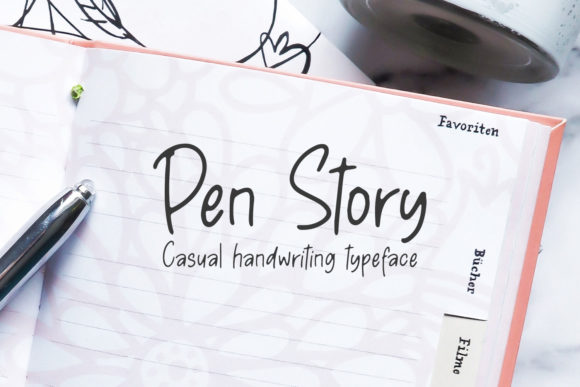
Dive into the world of Pen Story Font, a charming and expressive script font family that will add a touch of whimsy and individuality to your creative projects. With its natural, hand-drawn appearance, Pen Story captures the essence of authentic penmanship, making it the perfect choice for adding a personal touch to your designs.
Express yourself freely with Pen Story's comprehensive range of weights, styles, and alternates, allowing you to create captivating and diverse compositions. Whether you're a seasoned designer or just starting out, Pen Story's user-friendly interface and extensive character set make it a joy to use.
Unlock your creativity with Pen Story and explore a world of possibilities. Bring your designs to life with the font's graceful curves, delicate swashes, and playful ligatures. From elegant invitations and eye-catching posters to unique logos and enchanting branding materials, Pen Story will elevate your projects with its timeless beauty.
Immerse yourself in the charm of Pen Story and watch your designs bloom. Its versatility extends beyond traditional applications, making it a perfect fit for web design, social media graphics, product packaging, and even moving images. Let Pen Story's captivating allure enchant your audience and leave a lasting impression.